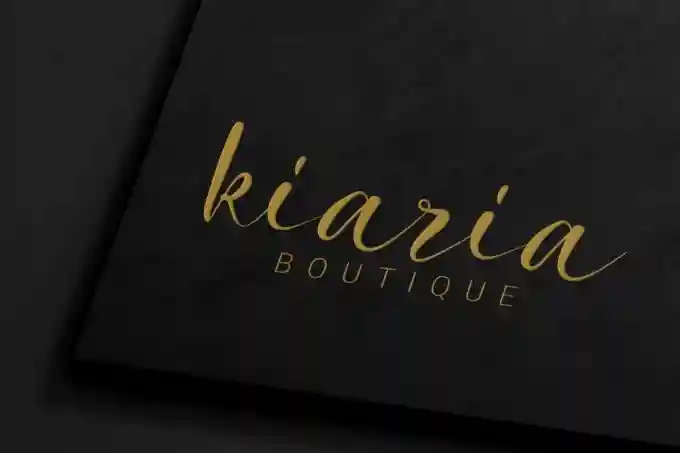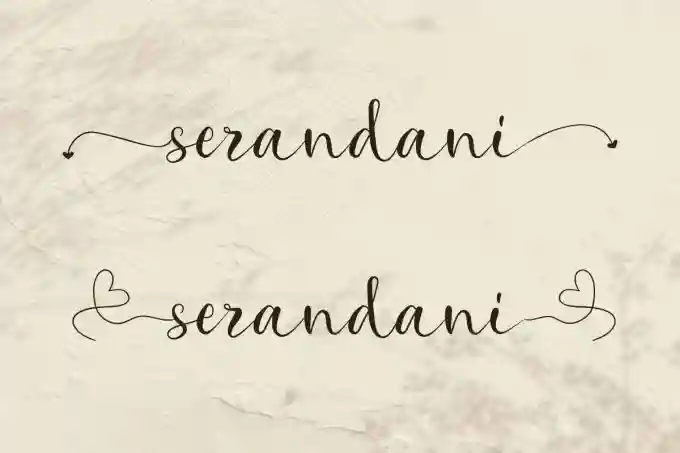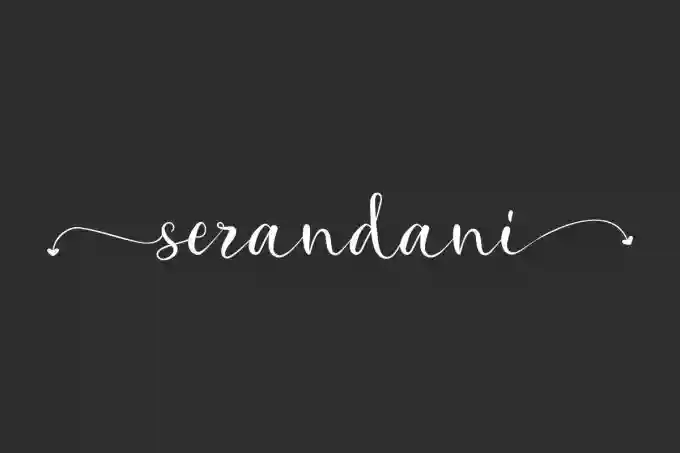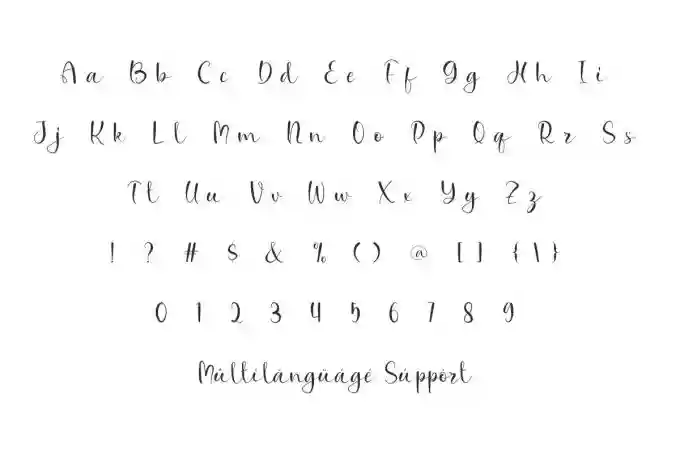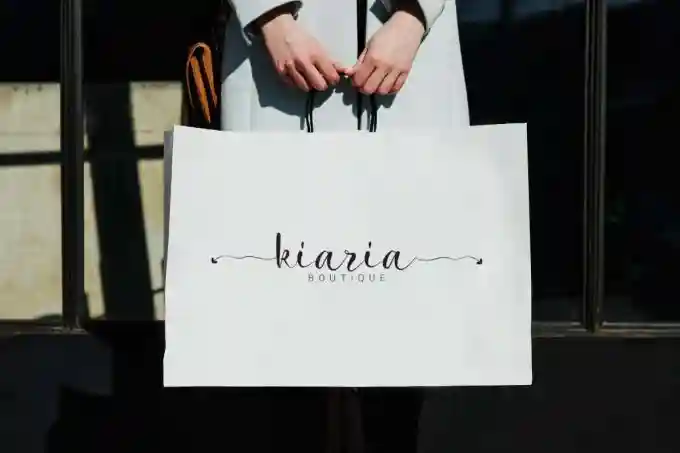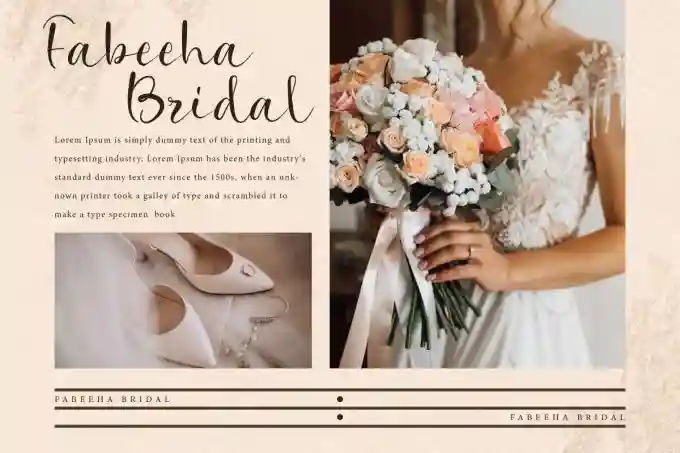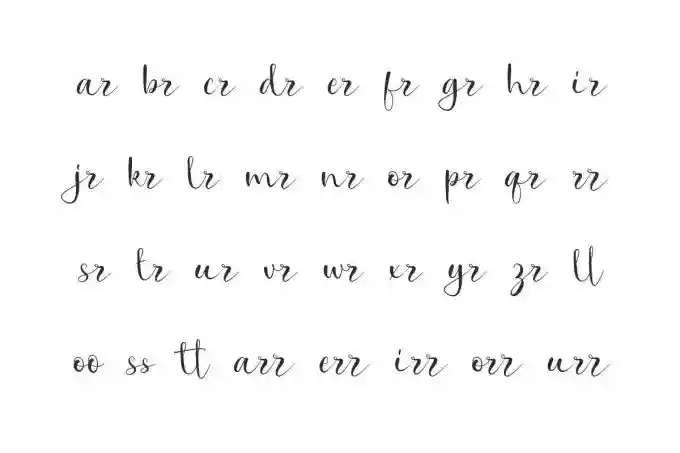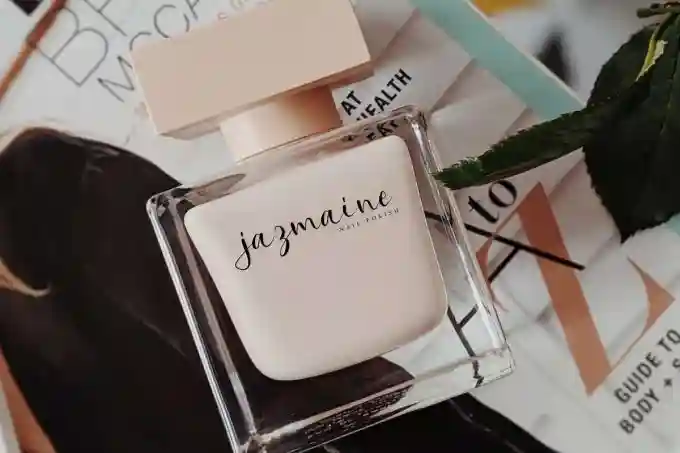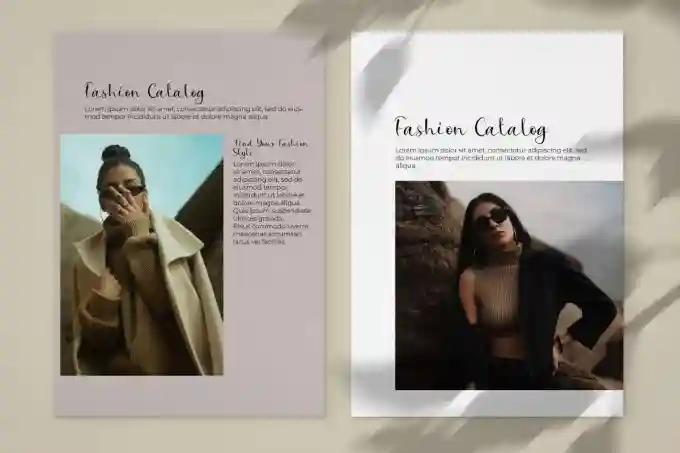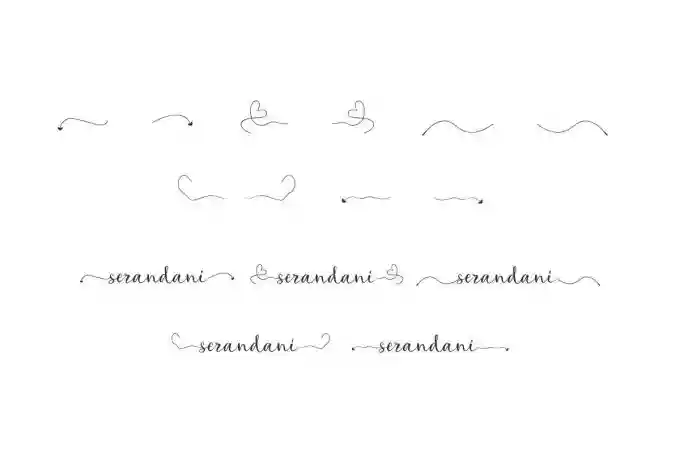
Serandani Font is a lovely script font with calligraphy style, created by VinType Studio. You can try this font for various beauty content designs because it will add sweetness as a complement. It will be suitable for many industries, such as beauty product, event or wedding organizer, advertisement, café, fashion, florist, furniture, jewelry, perfume, printing, publishing, spa, and more!
Serandani Font includes full set of Uppercase and Lowercase Basic Characters, Numerals and Punctuation. Also it contains Ligature and Swoosh characters to make it more aesthetic vibes to your extraordinary project, such as invitation, label, brand image, brochure, catalog, custom design, frame art, packaging design, poster, quote, screen printing, stationery, website, etc.